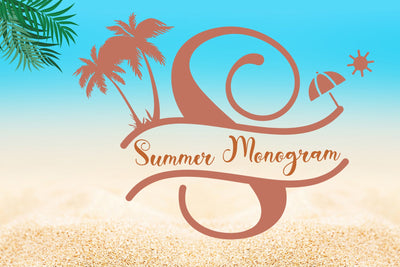
Summer Monogram
"Summer Monogram" is a combination of script and monogram fonts with coconut tree and beach decorations in the monogram letters. This font is very unique and beautiful, so it is perfect for summer moments. This font is equipped with monograms, basic characters, swash, titling, alternates, multilingual support, numerals and punctuations. Very suitable for summer, spring, autumn, mother's day, christmas, holiday, winter, wedding and other moments.